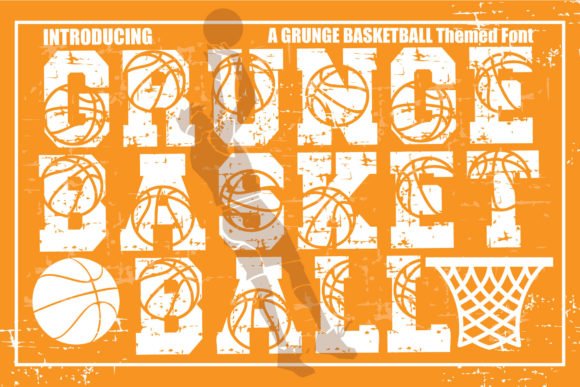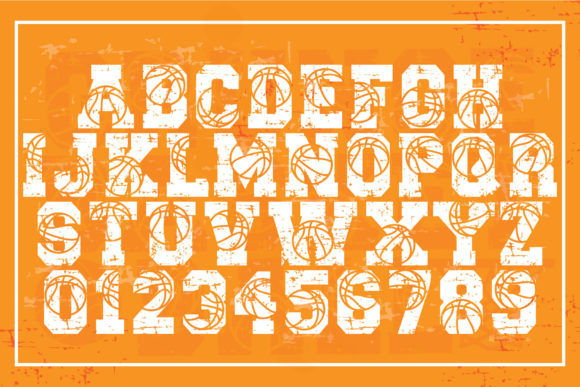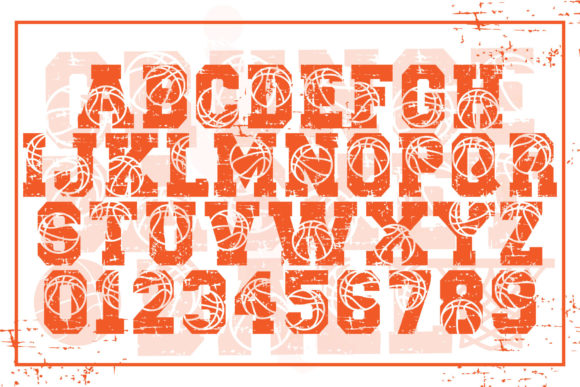
The Perfect Slam Dunk for Your Designs
You’re sitting in front of your computer, staring at a blank canvas, waiting for that spark of creativity to strike. The game clock is ticking, but your imagination is running wild. It’s moments like these that call for a font that’s bold, assertive, and unapologetic – a font that screams ‘I’m here to make a statement!’ Enter Grunge Basketball Font, the perfect companion for your sports-related designs.
This sharp-looking font is not just a visual representation of your creativity, but a reflection of your passion for the game. With its cool and edgy vibe, Grunge Basketball Font is the perfect tool to elevate your designs and make them truly unforgettable. Whether you’re creating posters, social media graphics, or merchandise, this font will inspire you to push the boundaries of what’s possible.
Grunge Basketball Font Key Features
- Font Size: This font is designed to be highly legible at various font sizes, ranging from 8pt to 48pt, making it suitable for use in a variety of applications, including sports graphics, scoreboards, and digital displays.
- Unique Characteristics: The Grunge Basketball Font features a distressed, grungy aesthetic with worn, rough edges and a textured appearance, giving it a unique and eye-catching look that’s perfect for sports-themed designs.
- Character Set: The font includes a comprehensive character set, including uppercase and lowercase letters, numerals, punctuation marks, and special characters, making it a versatile choice for a wide range of applications.
Grunge Basketball Font Review
Grunge Basketball Font is an interesting take on sports fonts. ✨ The bold, distressed look really captures the essence of 90s grunge culture. It’s a great choice for anyone looking to add a touch of nostalgia to their basketball-themed designs.
The font’s distressed texture adds a layer of depth and visual interest, making it stand out in a crowded sports font market. ✨ The font also comes with a variety of styles and weights, making it easy to use in different contexts.
- ⚠️ The font’s distressed texture can sometimes make it difficult to read, especially at small font sizes. This may be a problem for designs where readability is a top priority.
- ⚠️ The font’s grunge aesthetic may not be to everyone’s taste. While it’s perfect for basketball fans who grew up in the 90s, it may not appeal to those with a more modern aesthetic.
Overall, Grunge Basketball Font is a solid choice for anyone looking to add a touch of grunge flair to their basketball designs. While it has some limitations, its unique aesthetic and versatility make it a great addition to any designer’s toolkit.
The Grunge Basketball Font is ideal for sports-related designs, such as posters, flyers, and social media graphics. You can also use it for creative projects, like album art or merchandise designs.